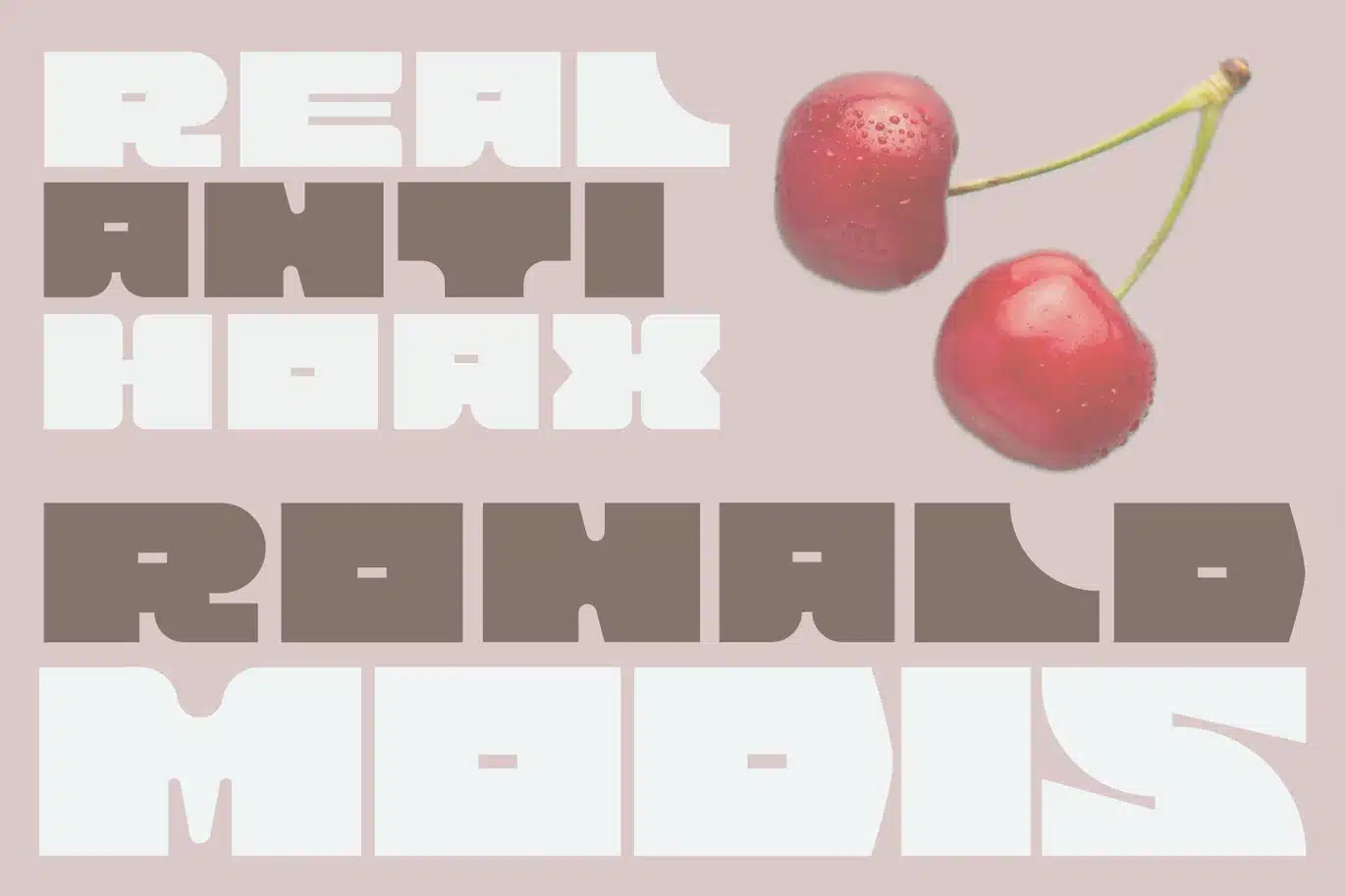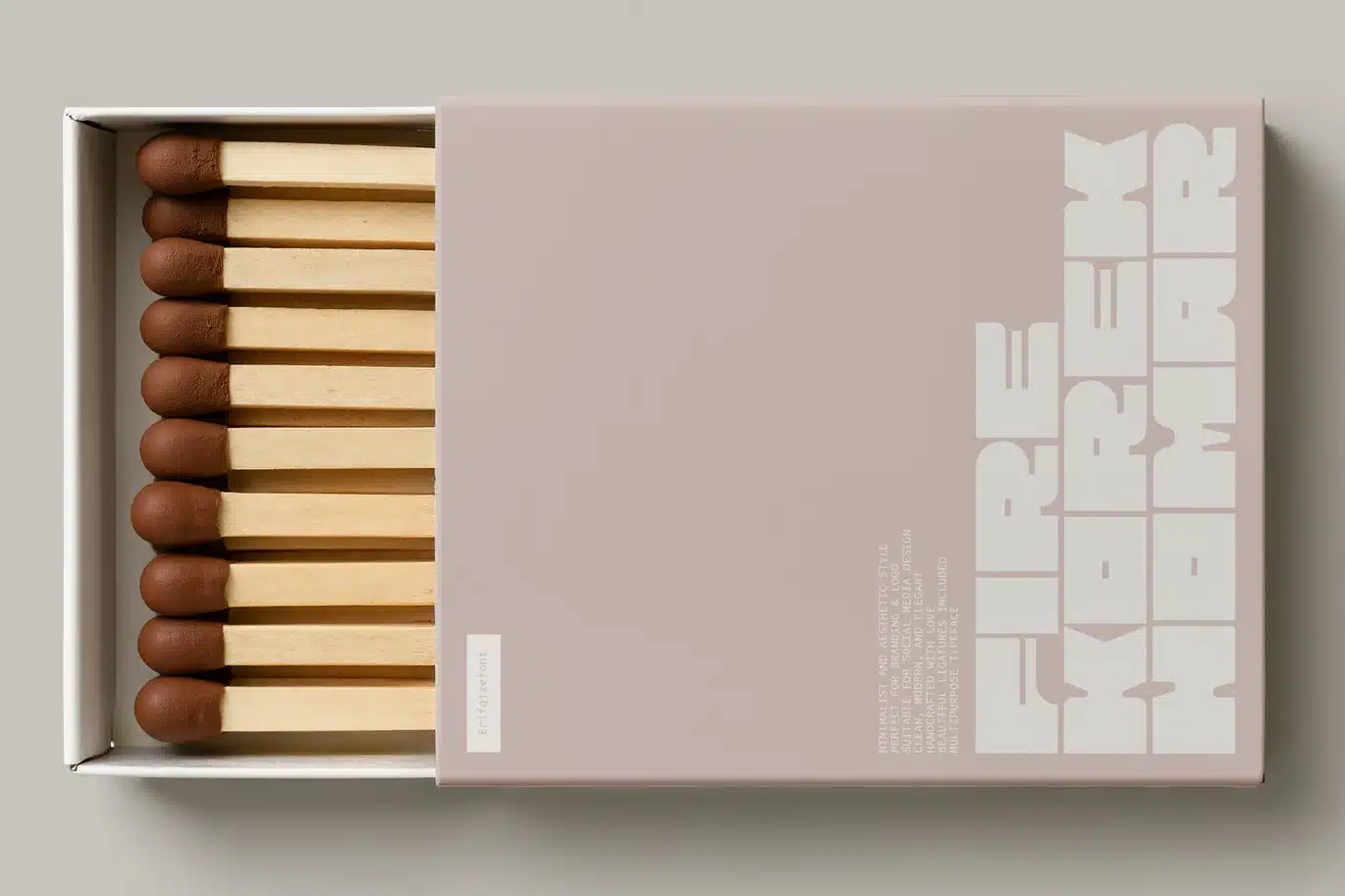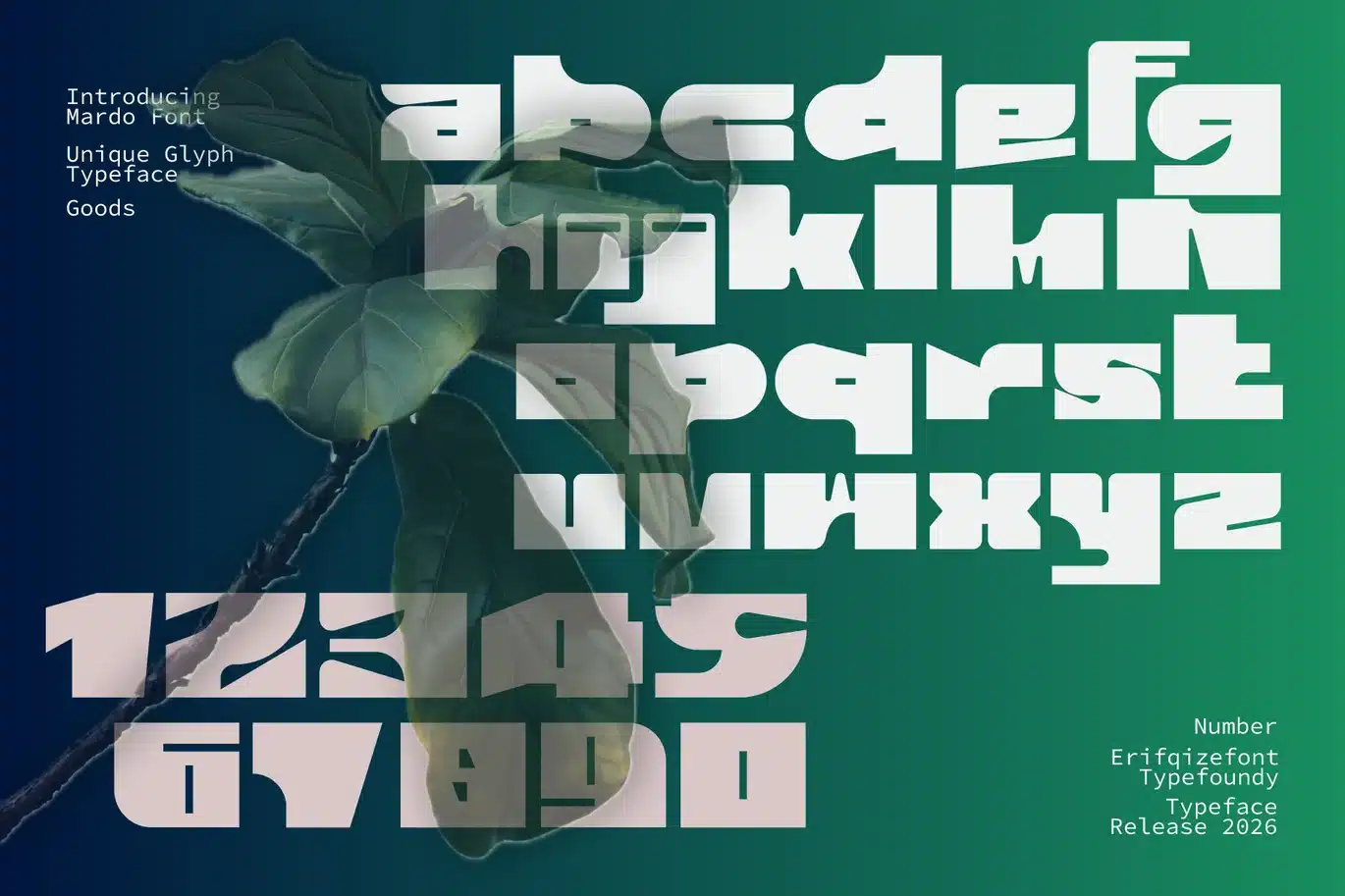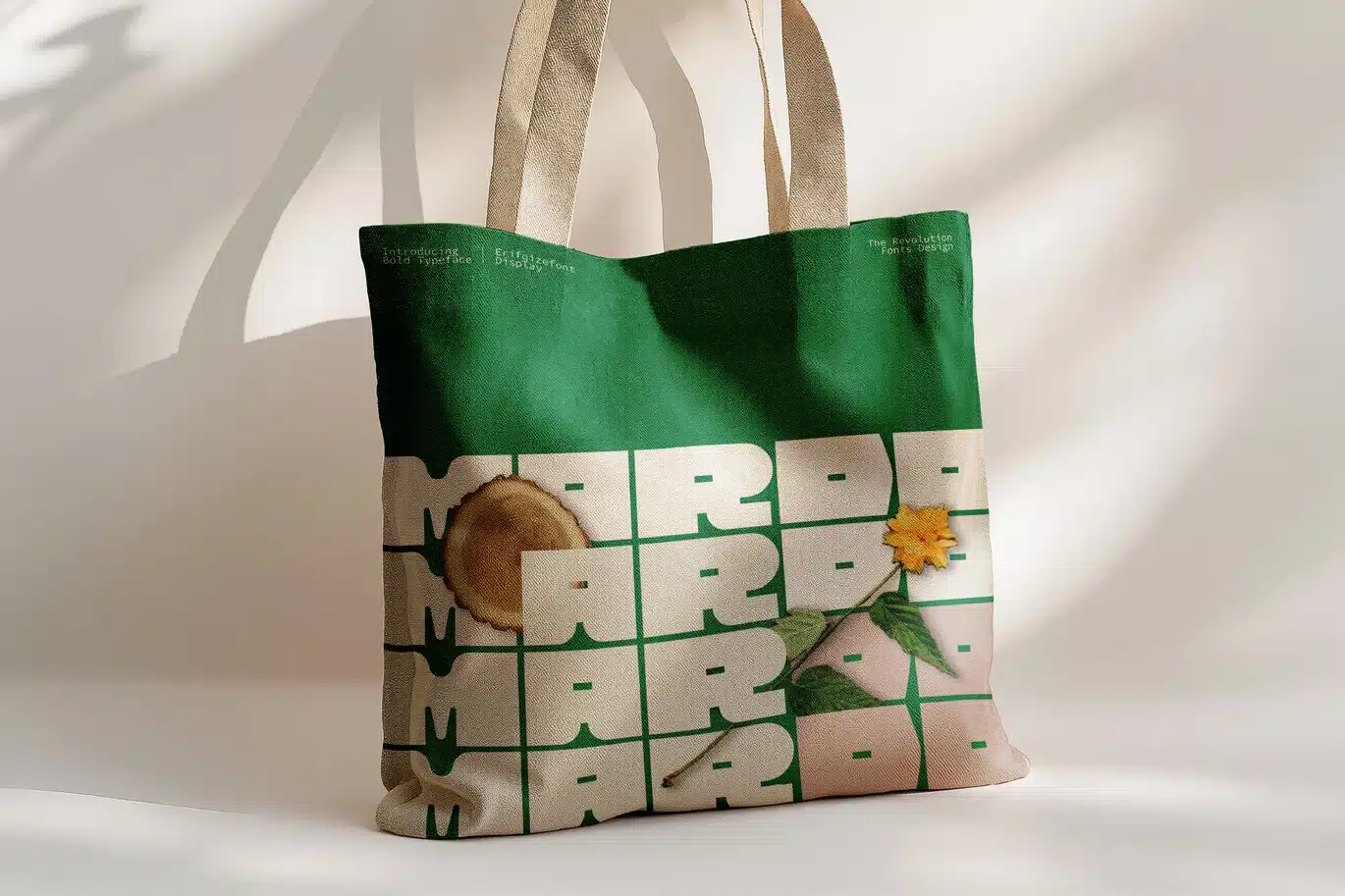
Mardo Font
MARDO is a bold display typeface with a strong geometric structure and playful personality. Designed with thick letterforms and unique cut details, MARDO delivers a modern yet organic feel—perfect for eye-catching headlines, branding, posters, and creative layouts.
Inspired by natural elements and contemporary grid-based design, this typeface blends solid shapes with soft curves, creating a distinctive visual rhythm that stands out in any composition. MARDO is ideal for designers who want to make a bold statement while keeping a friendly and approachable tone.
Whether used for branding, editorial design, packaging, or digital content, MARDO brings a fresh, expressive, and confident character to your projects.